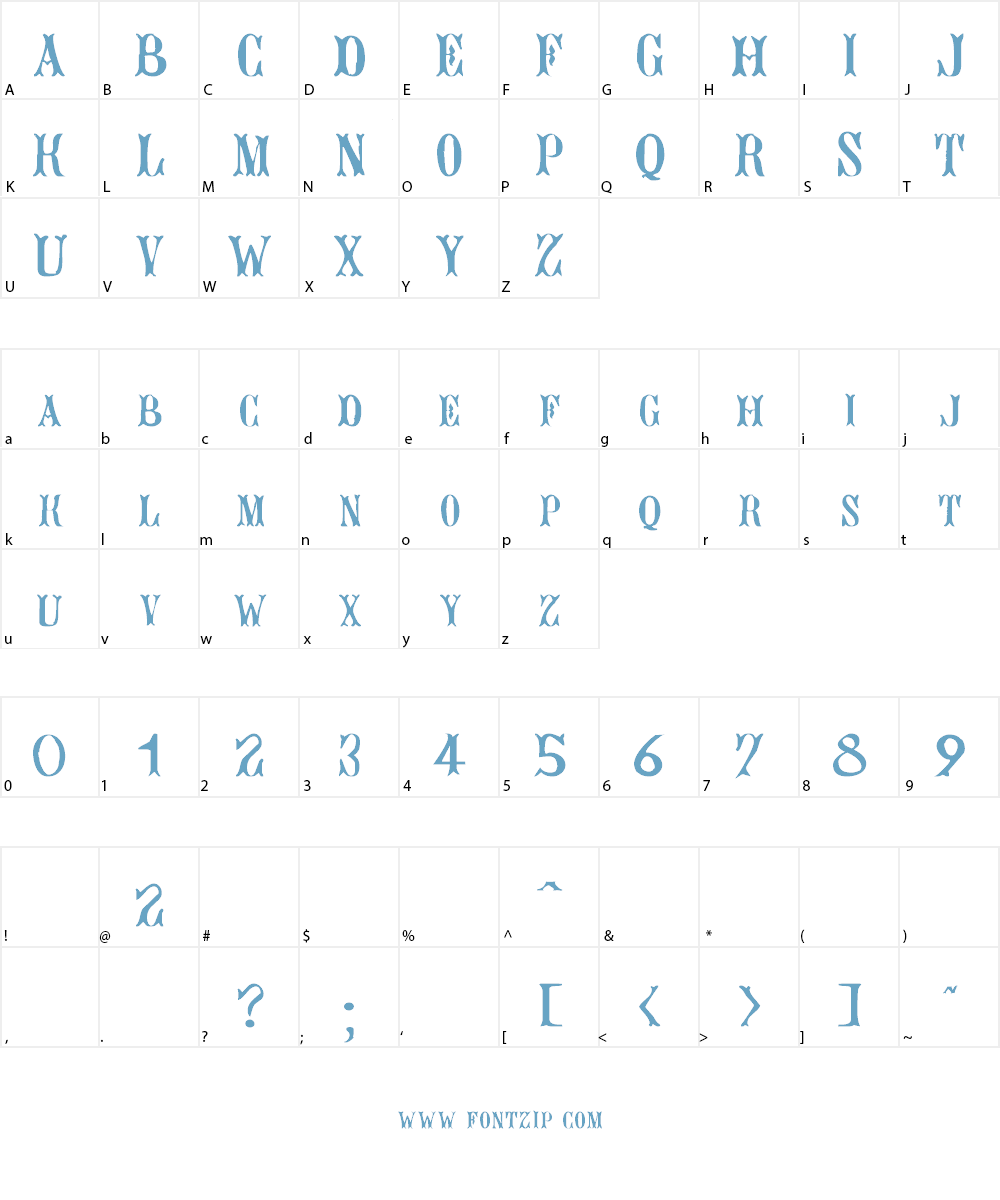
This font is very precious to me, not only because that is one of the very first ones I created with Fontographer 3 (a while ago), but also because this character was used by my great uncles for their posters, at the 1900 Paris World Fair. Their company, Bujardet Frères, was selling enamel for the then flourishing furniture quarter, Saint Antoine, near Bastille.